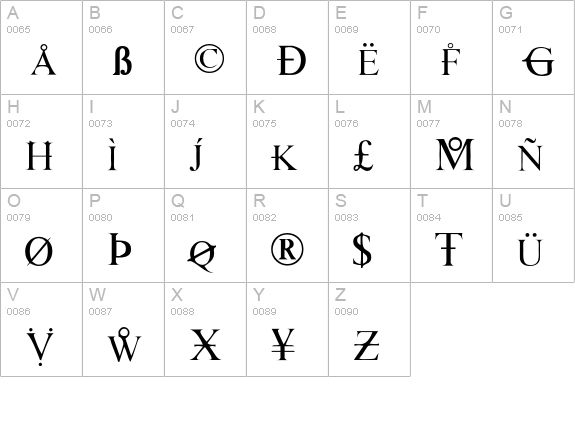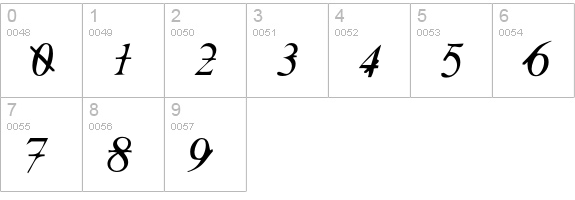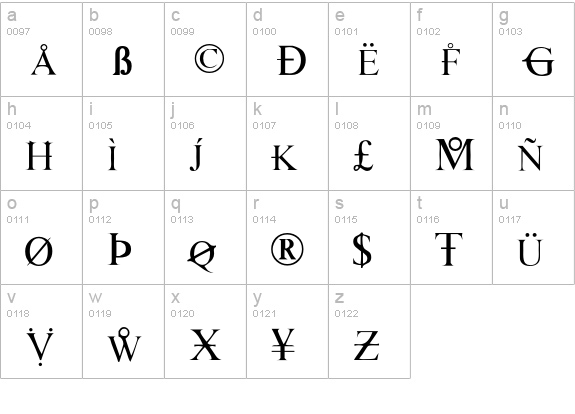
Introducing Hackers font, a bold and dynamic typeface that captures the essence of the digital underground. Created with the rebellious spirit of hackers in mind, this font is the perfect choice for those looking to add a touch of edginess and intrigue to their designs. With its sleek and futuristic appearance, Hackers font is sure to make a lasting impression. Each character is meticulously crafted to embody the essence of hacking culture, with sharp lines and intricate details that reflect the precision and expertise of those who dwell in the virtual realm. What makes Hackers font even more enticing is that it is free. That's right, this cutting-edge typeface is freely available to download at FontsMarket.com. Whether you're a graphic designer, a web developer, or simply someone who appreciates the aesthetic appeal of cyberpunk-inspired designs, Hackers font is the perfect addition to your font library. Not only does Hackers font exude style and sophistication, but it also offers unparalleled versatility. From logos and branding materials to website headers and social media graphics, this font can effortlessly elevate any project, giving it that extra edge that sets it apart from the rest. So why wait? Download Hackers font today and unleash your creativity with a typeface that embodies the spirit of the digital revolution. With its bold design and free availability at FontsMarket.com, this font is a must-have for anyone looking to make a statement. Embrace the world of hacking and let Hackers font take your designs to the next level.